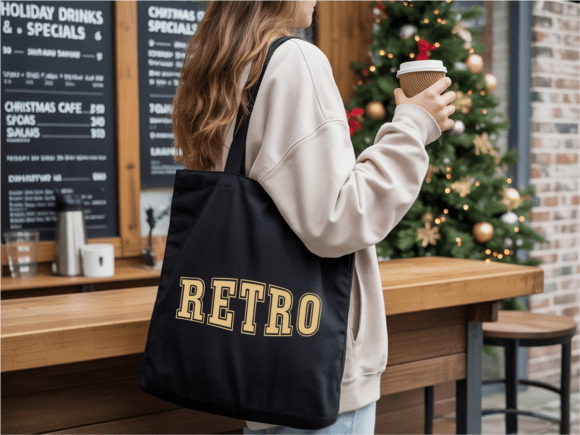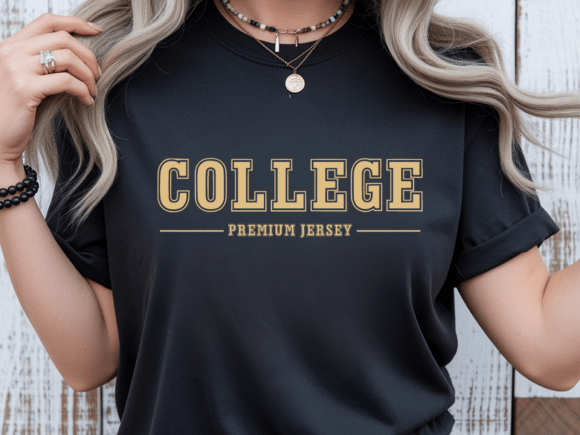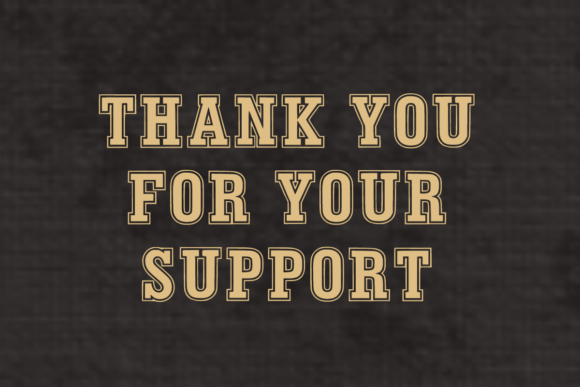
Introduction to Retro University Font Font
Fonts play a crucial role in design, and the Retro University Font font is a typeface that brings both character and versatility to any project. Whether you’re working on a branding project, a website, or a print design, the Retro University Font font offers a unique style that can elevate your work.
π Step onto the field with βRetro Universityβ.
π Retro University is a powerhouse display font that perfectly captures the nostalgic spirit of vintage campus life and classic sports team branding Designed with strong slab serifs and a dynamic 3D shadow effect, this font brings a professional, high-energy, and authoritative look to any design.
Key Features of Retro University Font Font
Why Choose Retro University Font Font?
The Retro University Font font is more than just a typeface β it’s a design tool that helps you communicate your message with style and clarity. Its unique character set and versatile design make it suitable for a wide range of applications, from elegant invitations to bold headlines.
With its carefully crafted letterforms and balanced proportions, the Retro University Font font ensures readability and visual appeal across all mediums.
What makes Retro University Font font special?
The Retro University Font font stands out with its unique design, exceptional readability, and versatility across various design applications.